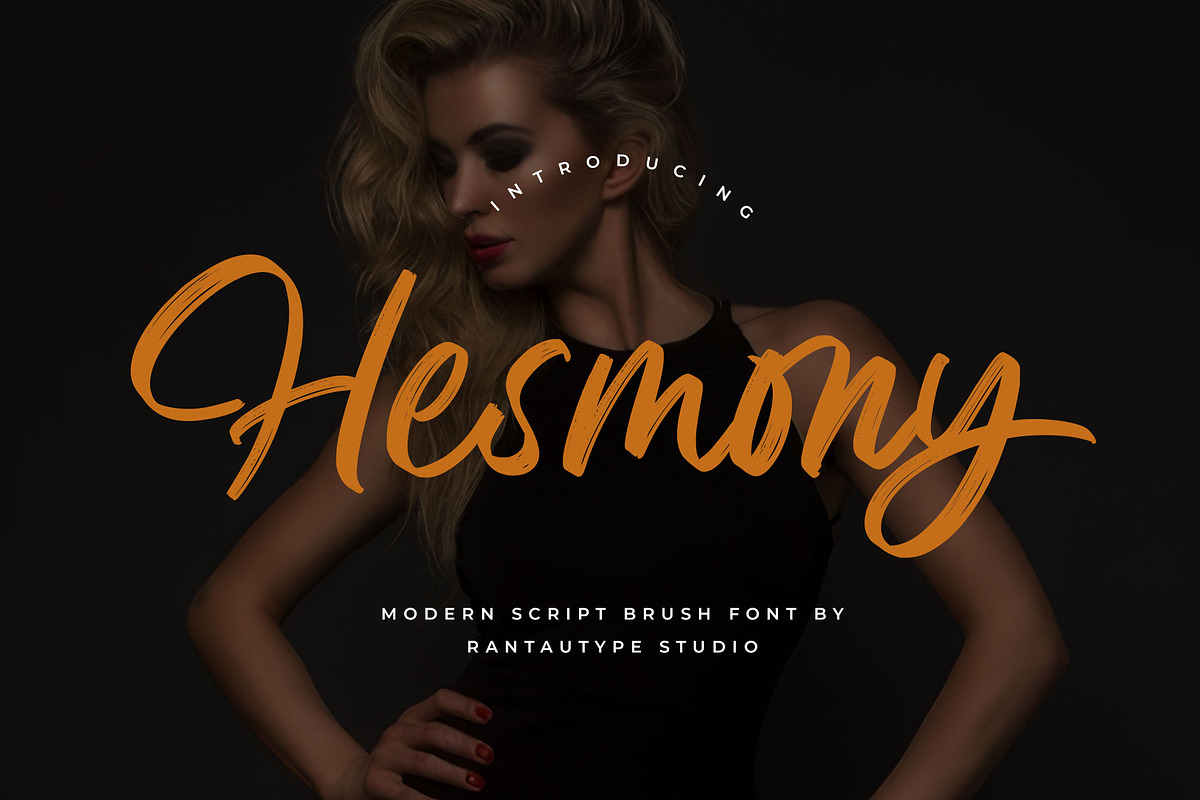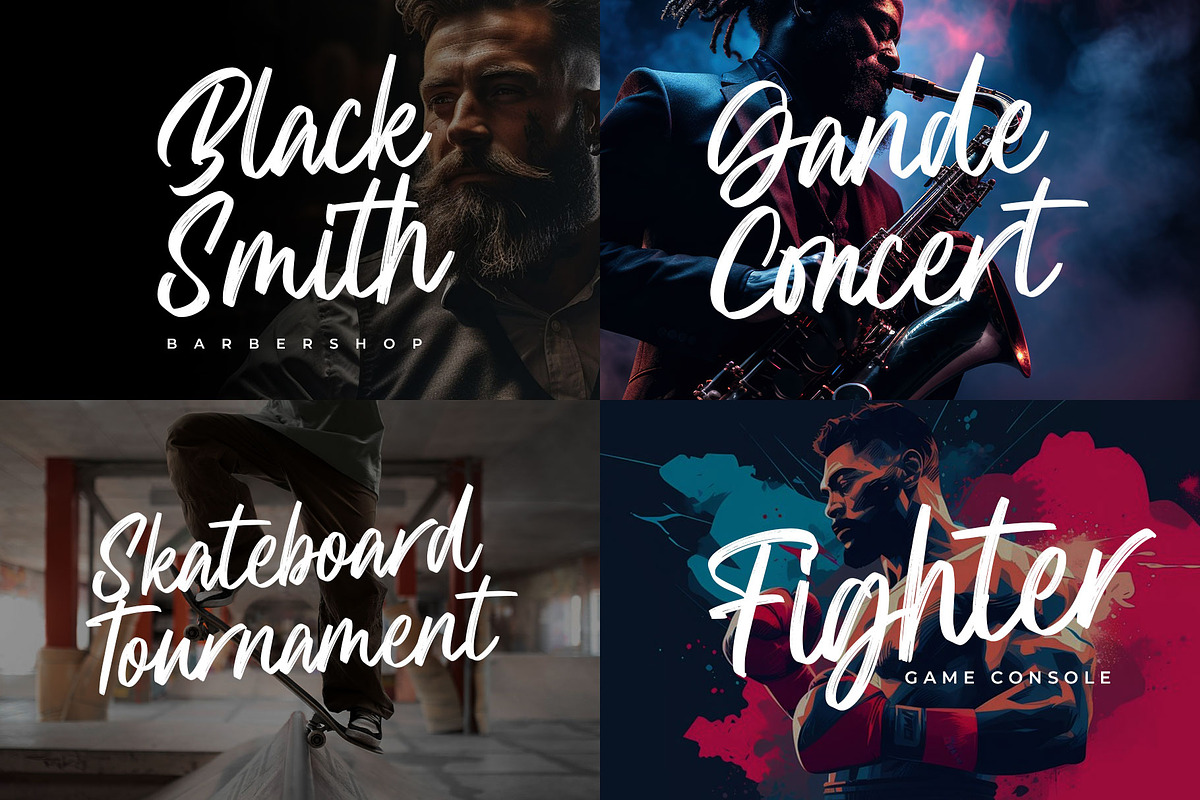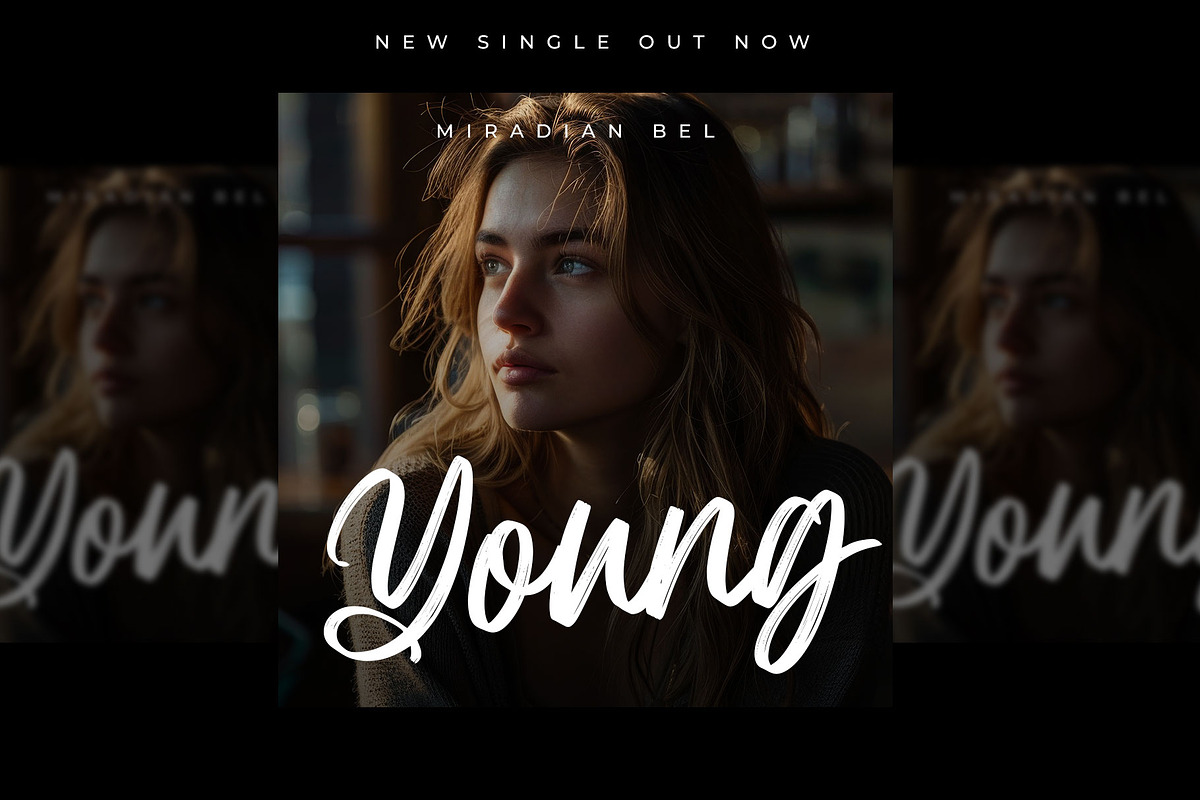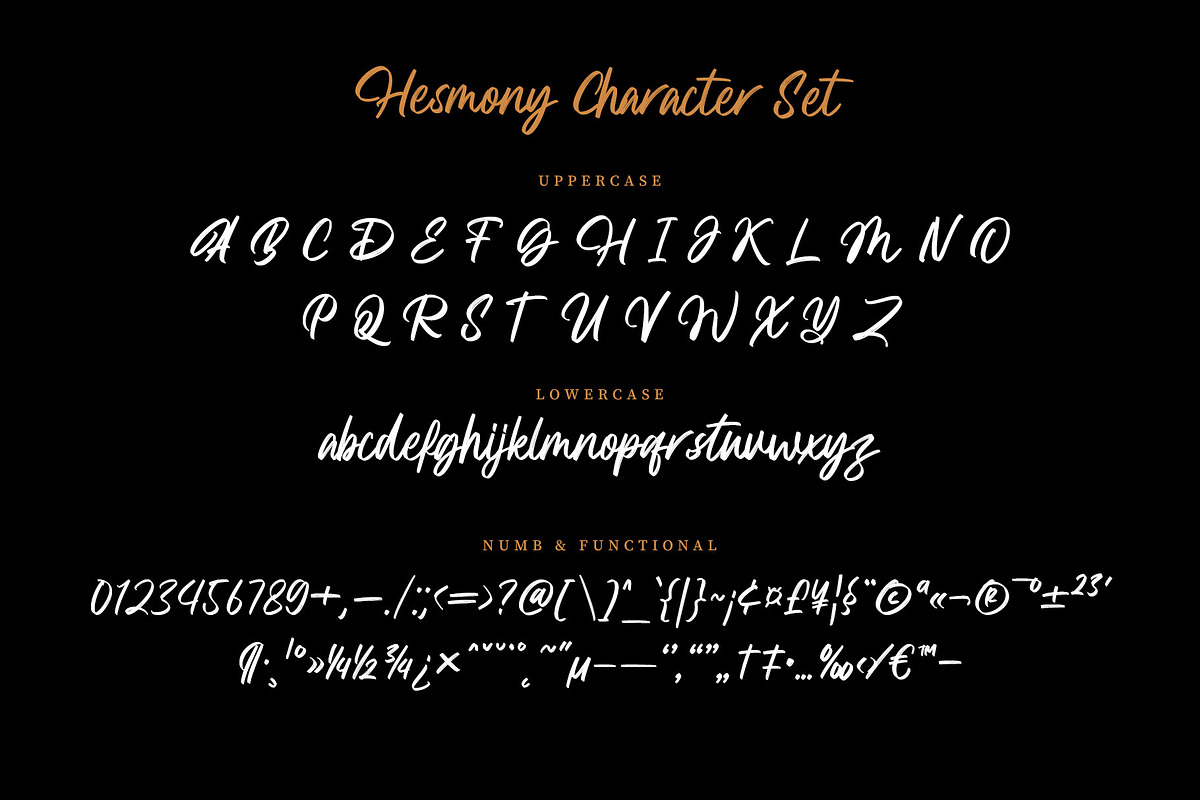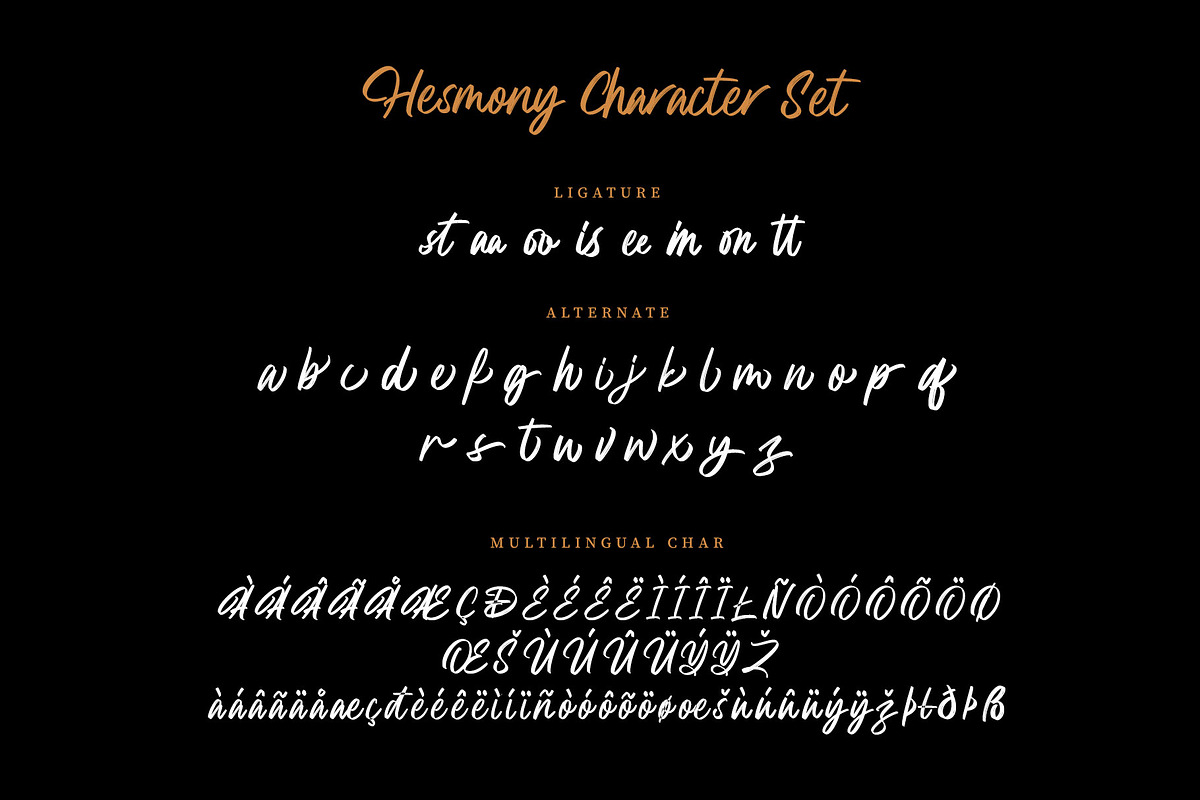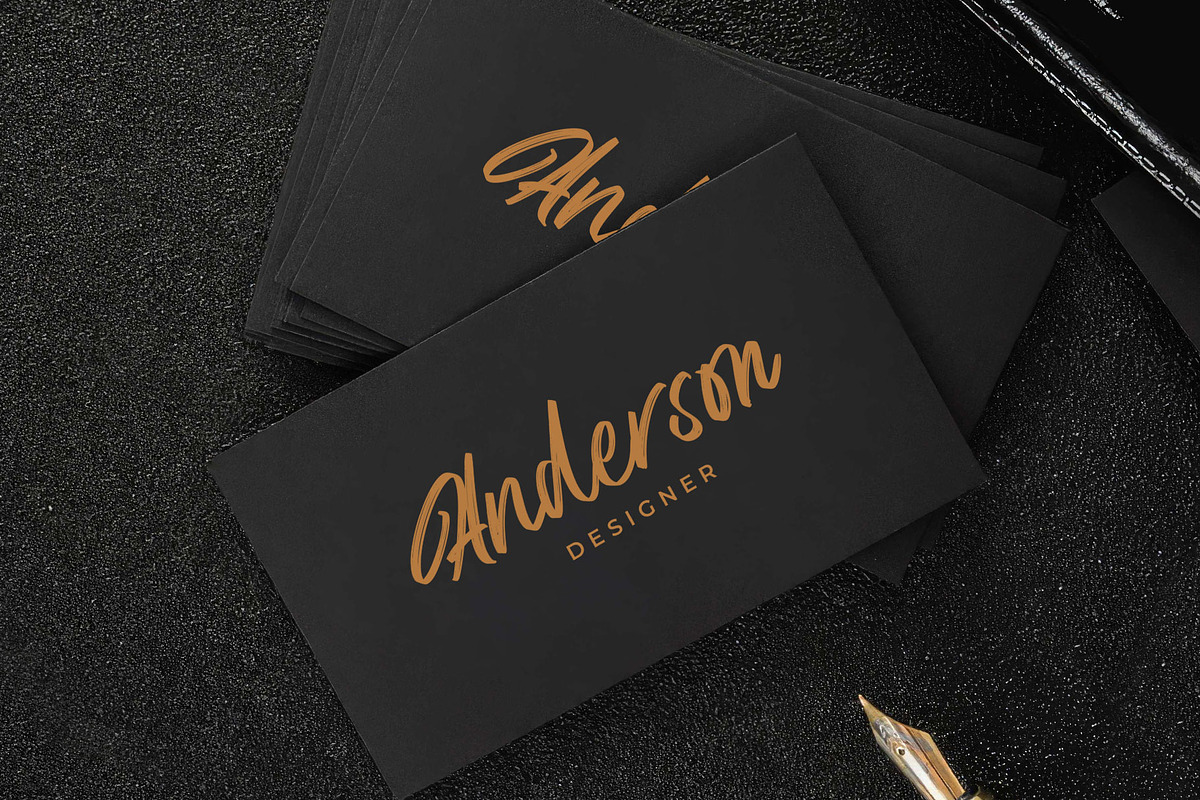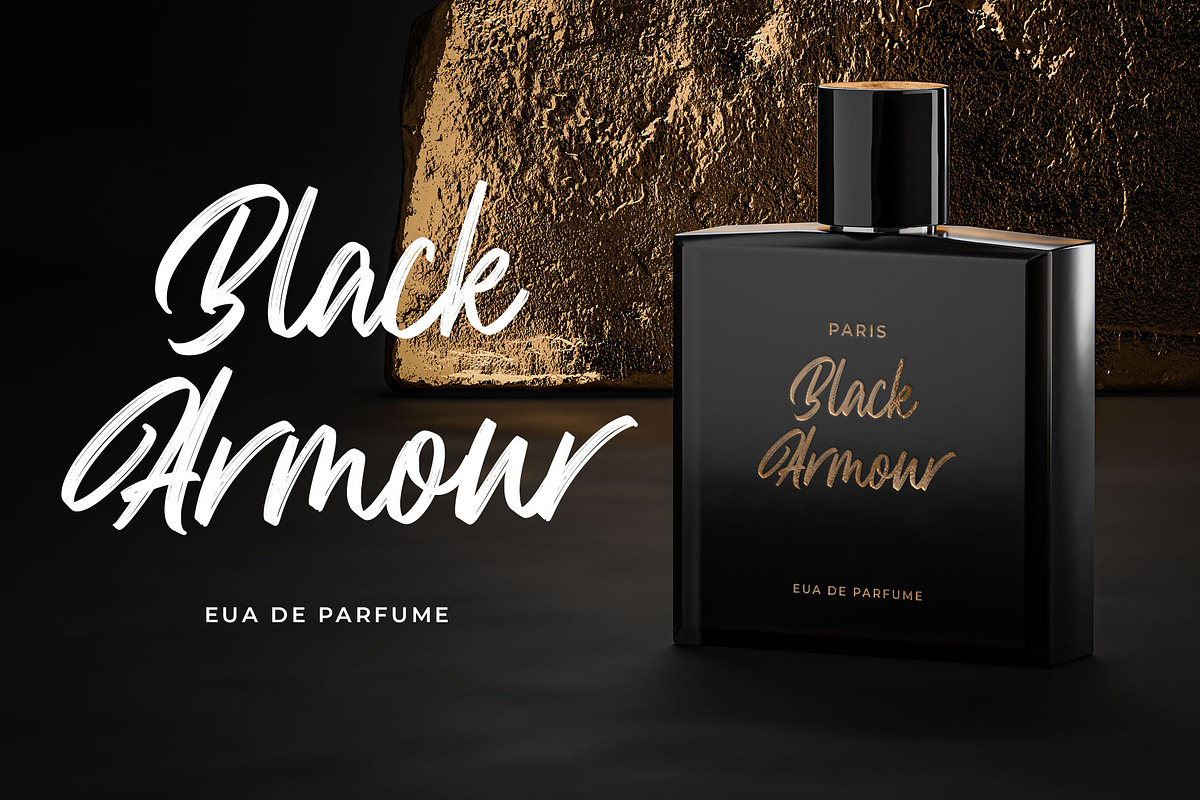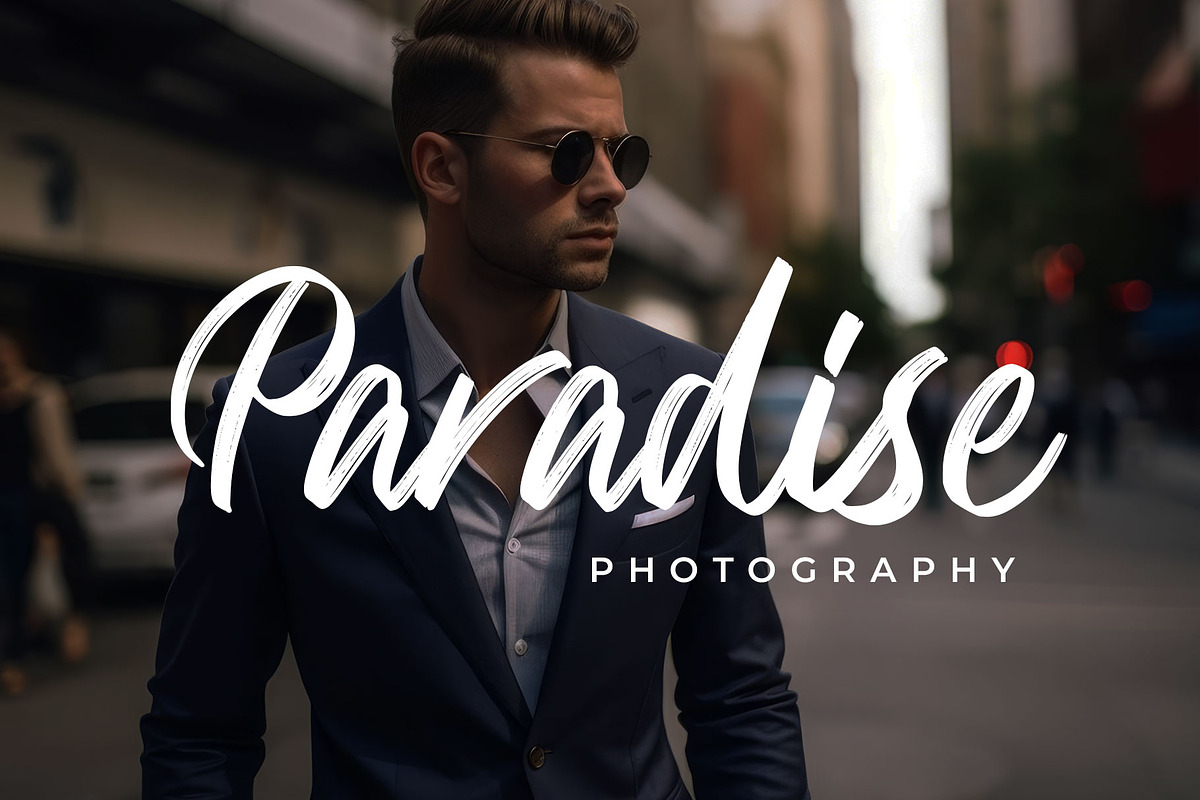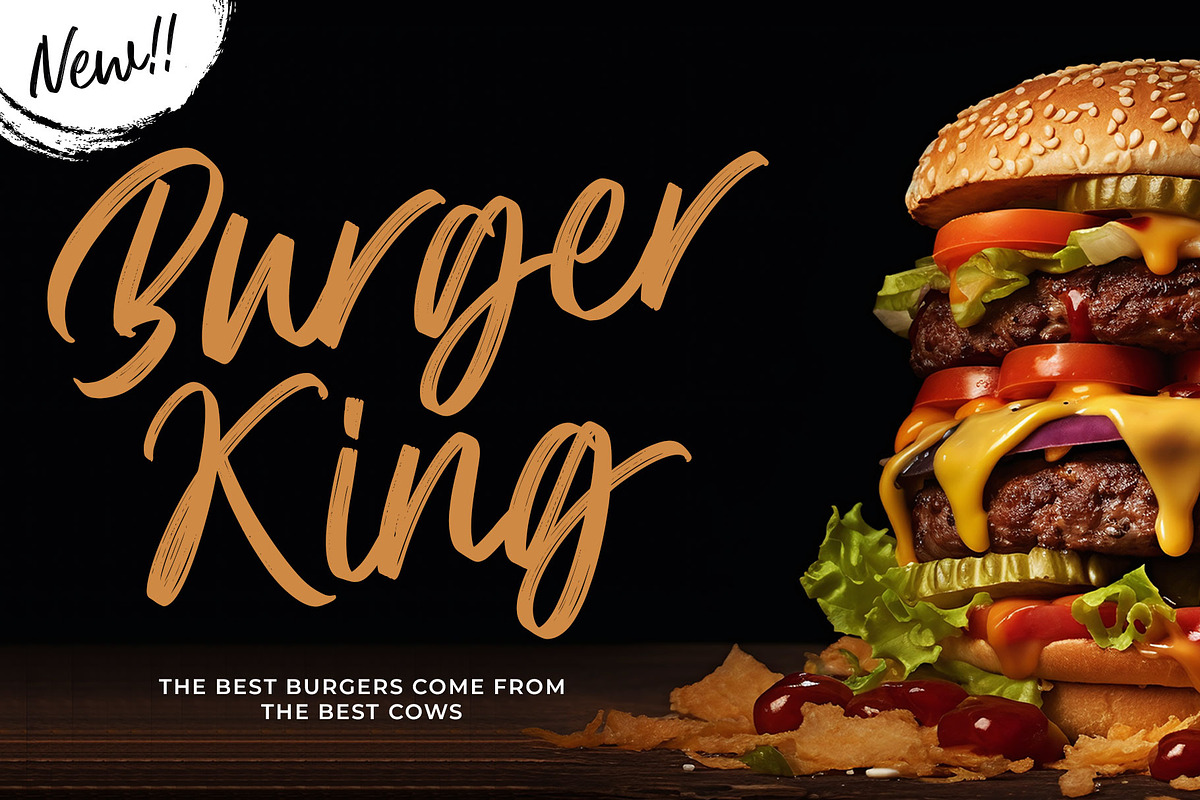
Hesmony Modern Brush Script Font
Hesmony is modern brush script font with classy and elegant look. Hesmony bring sophisticated of beautiful brush to elevate you design project.
Hesmony is a perfectly choice for any creative endeavor, chic, lifestyle design such as logos, advertisements, watermark on photography, stationery, branding project, display and magazine, invitation, corporate brand, product design, label, business project and other project with handwritten taste.
- Standart Glyphs
- Alternate and Ligature
Fonts include Multilingual Character for: Afrikaans, Albanian, Asu, Basque, Bemba, Bena, Breton, Chiga, Cornish, Dutch, English, Estonian, Filipino, Finnish, Friulian, Galician, Gusii, Indonesian, Irish, Italian, Kabuverdianu, Kalenjin, Kinyarwanda, Luo, Luxembourgish, Luyia, Machame, Makhuwa-Meetto, Makonde, Malagasy, Manx, Morisyen, North, Ndebele, Nyankole, Oromo, Portuguese, Quechua, Romansh, Rombo, Rundi, Rwa, Samburu, Sango, Sangu, Scottish, Gaelic, Sena, Shambala, Shona, Soga, Somali, Spanish, Swahili, Swedish, Swiss, German.